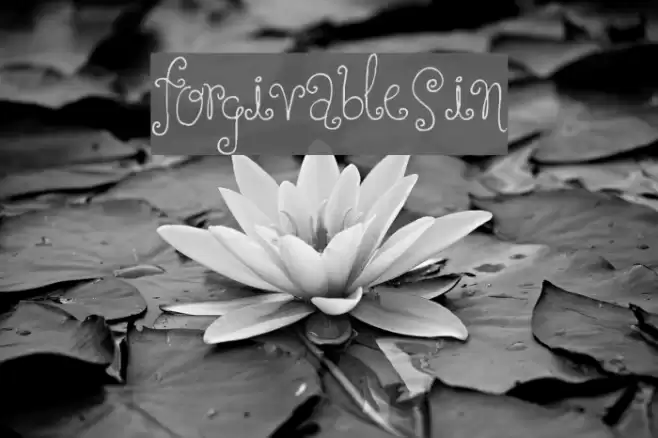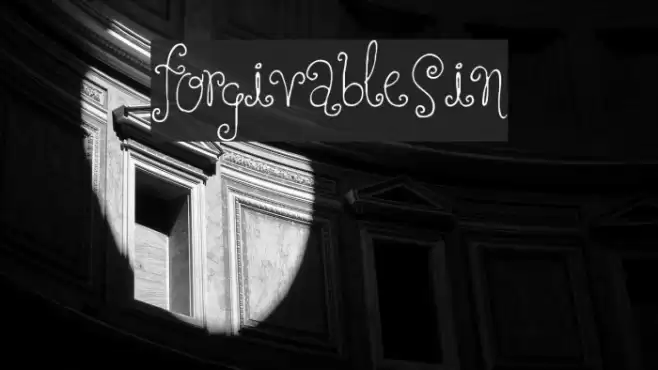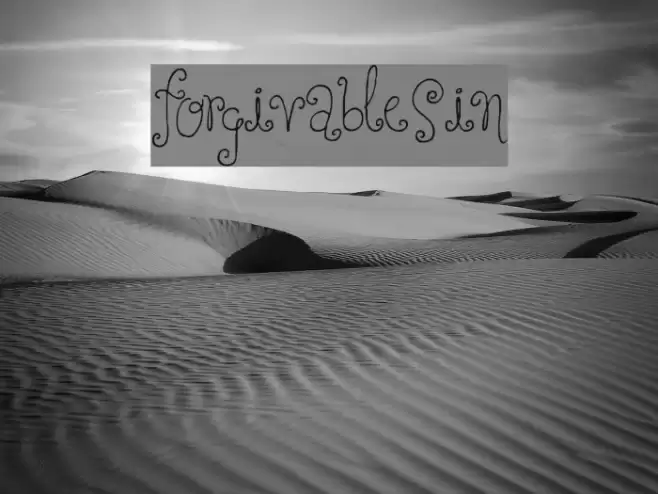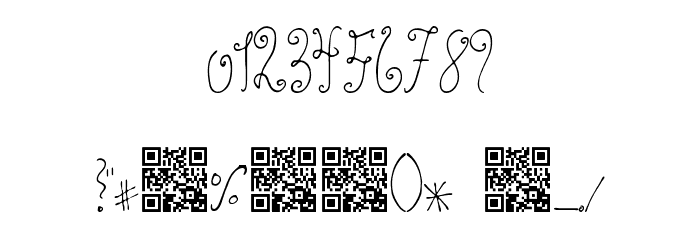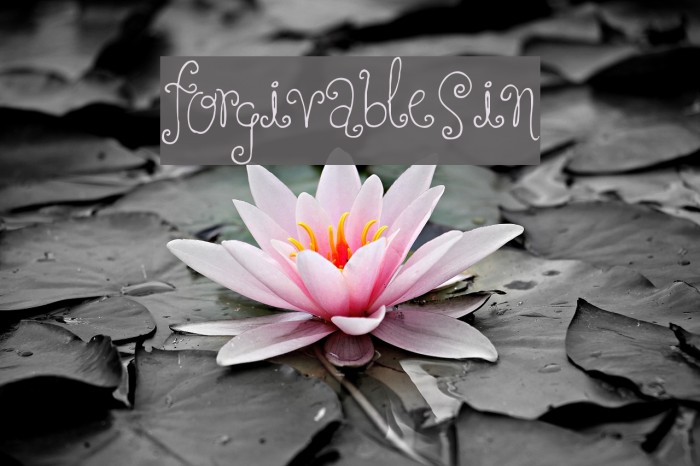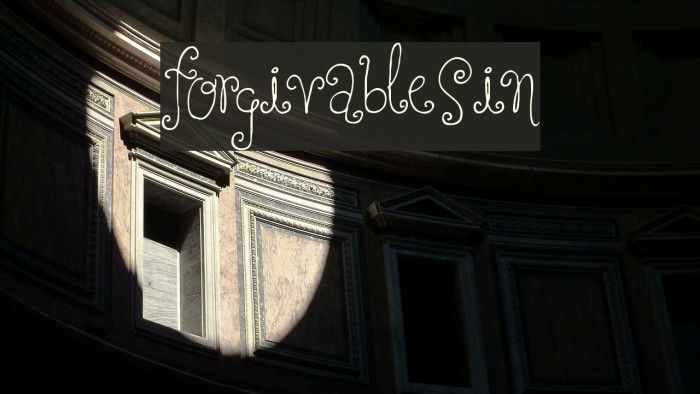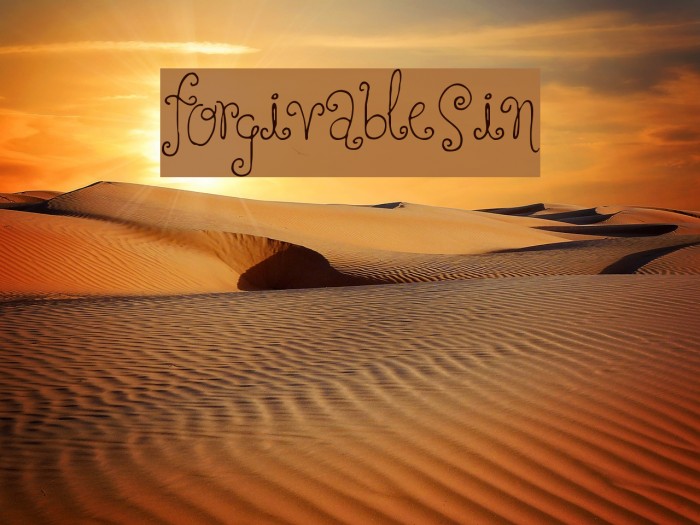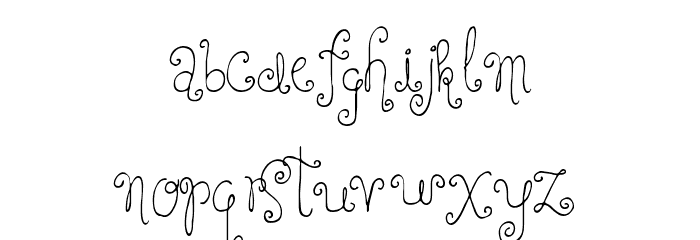
ForgivableSin Font
ForgivableSin Description
This font features a whimsical and decorative style, characterized by its playful loops and curls. Each letter is uniquely crafted with intricate swirls, giving it an artistic and hand-drawn appearance. The uppercase and lowercase letters maintain a consistent style, with the uppercase being slightly more elaborate. The numbers and special characters follow the same decorative theme, making the font cohesive throughout. Its delicate lines and ornate details make it stand out, ideal for creative and artistic projects.
A whimsical, decorative font with playful loops and curls from Curly fonts.
- Proposed Projects: Ideal for invitations, greeting cards, artistic posters, and branding that requires a creative and unique touch.
- Use Case: Logos, Invitations, Artistic projects